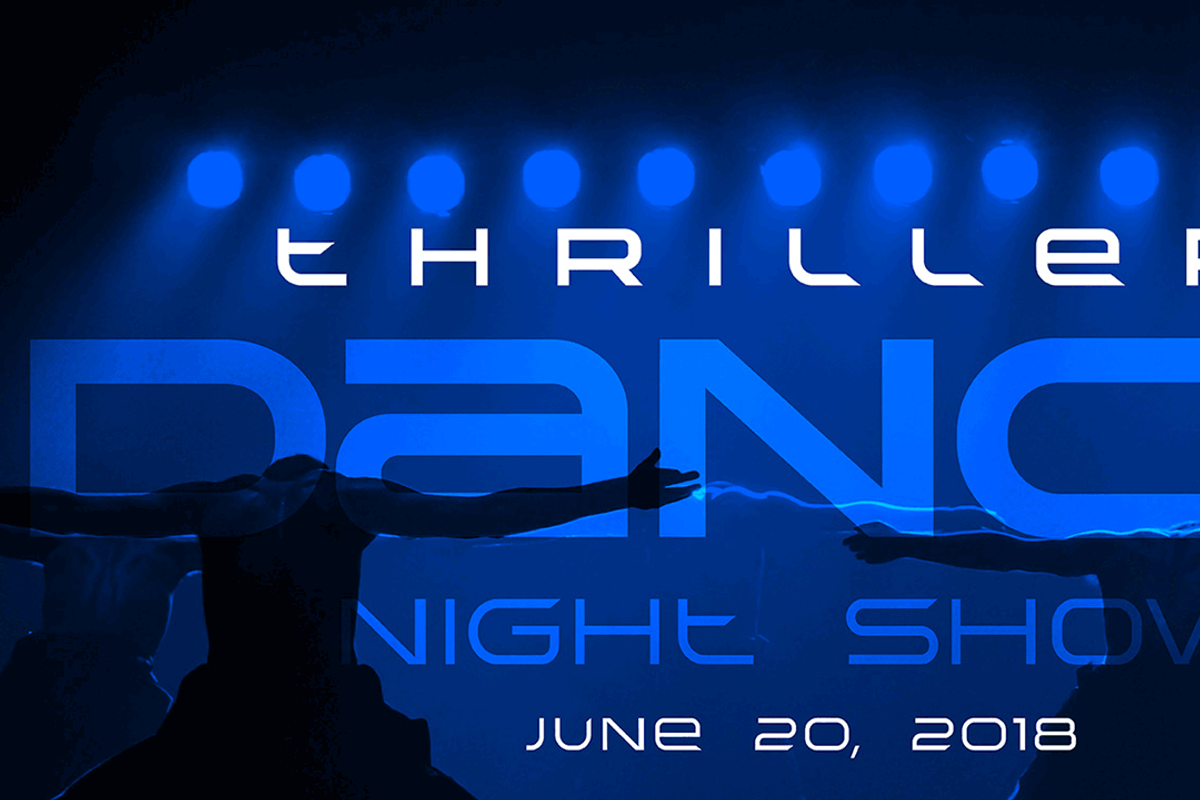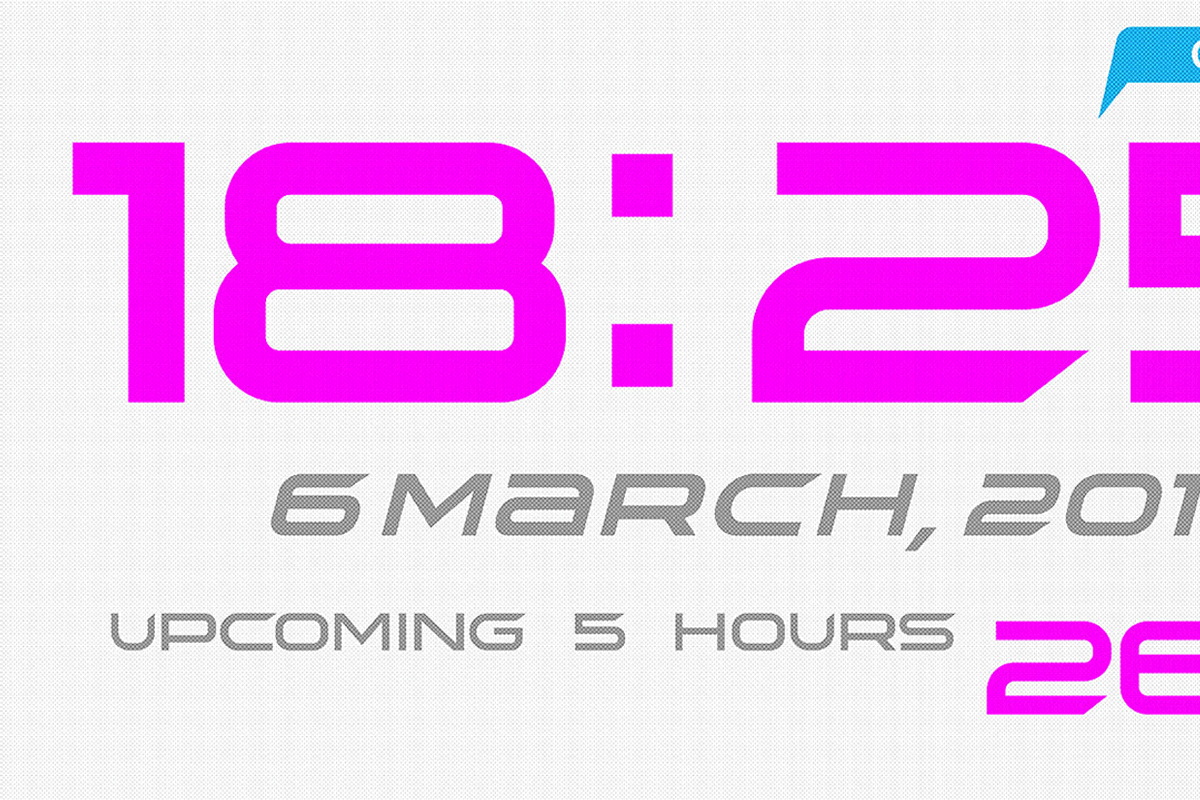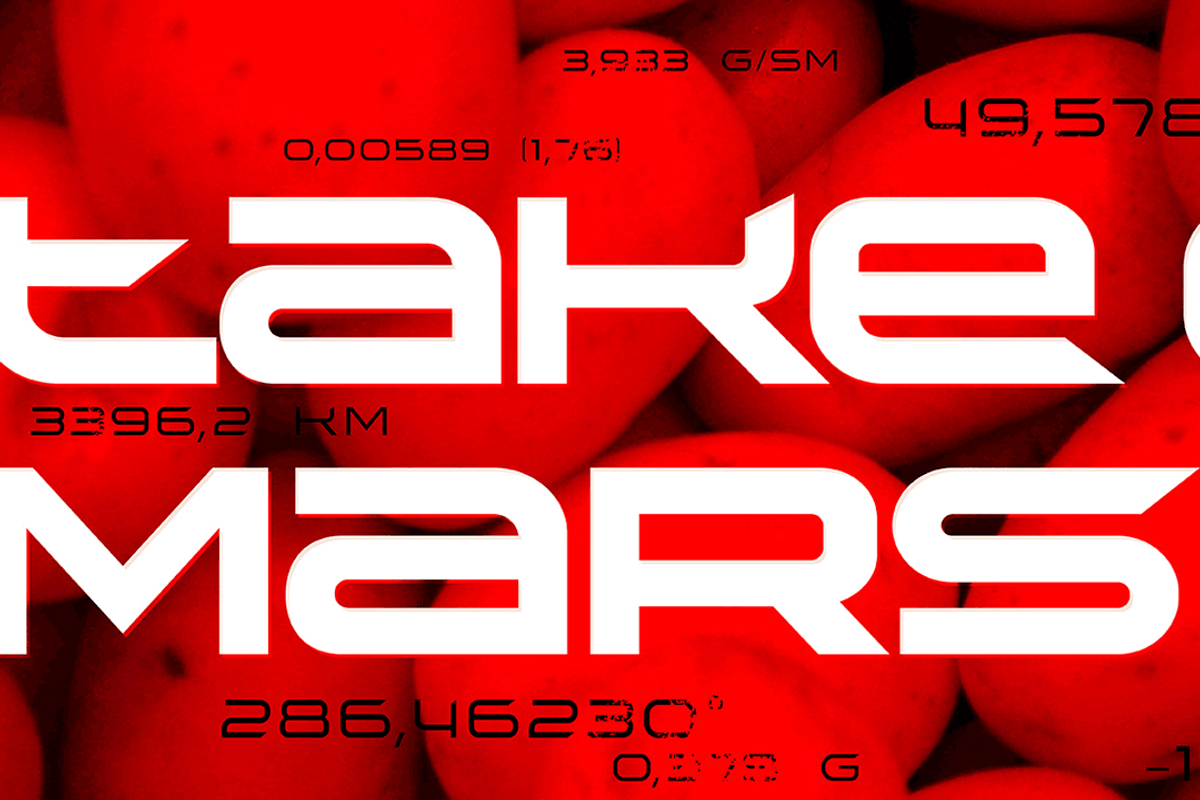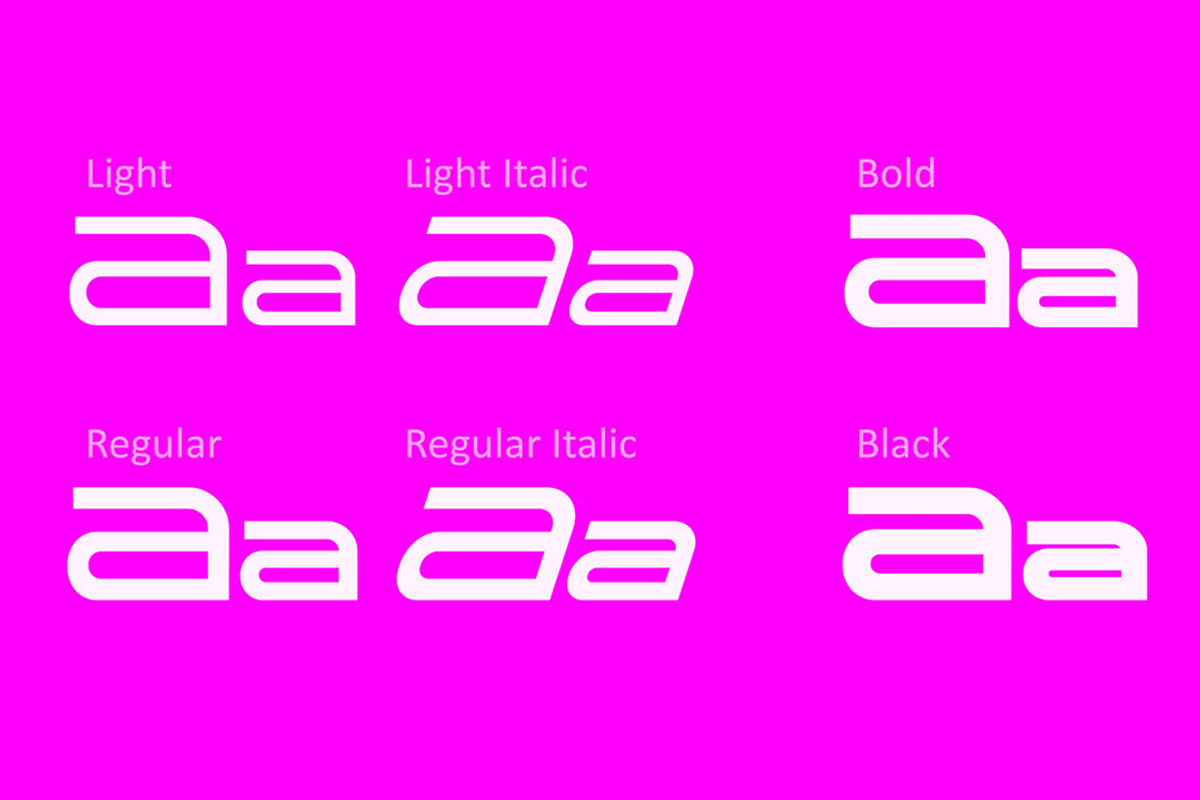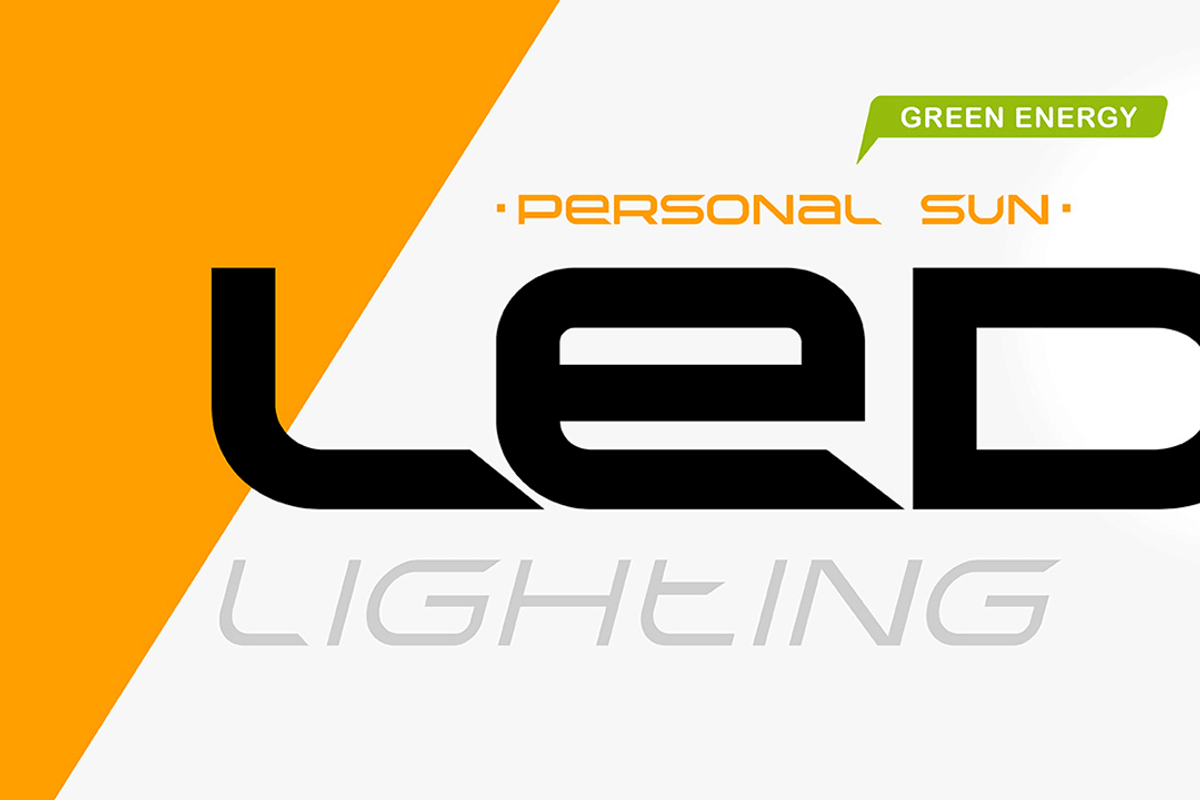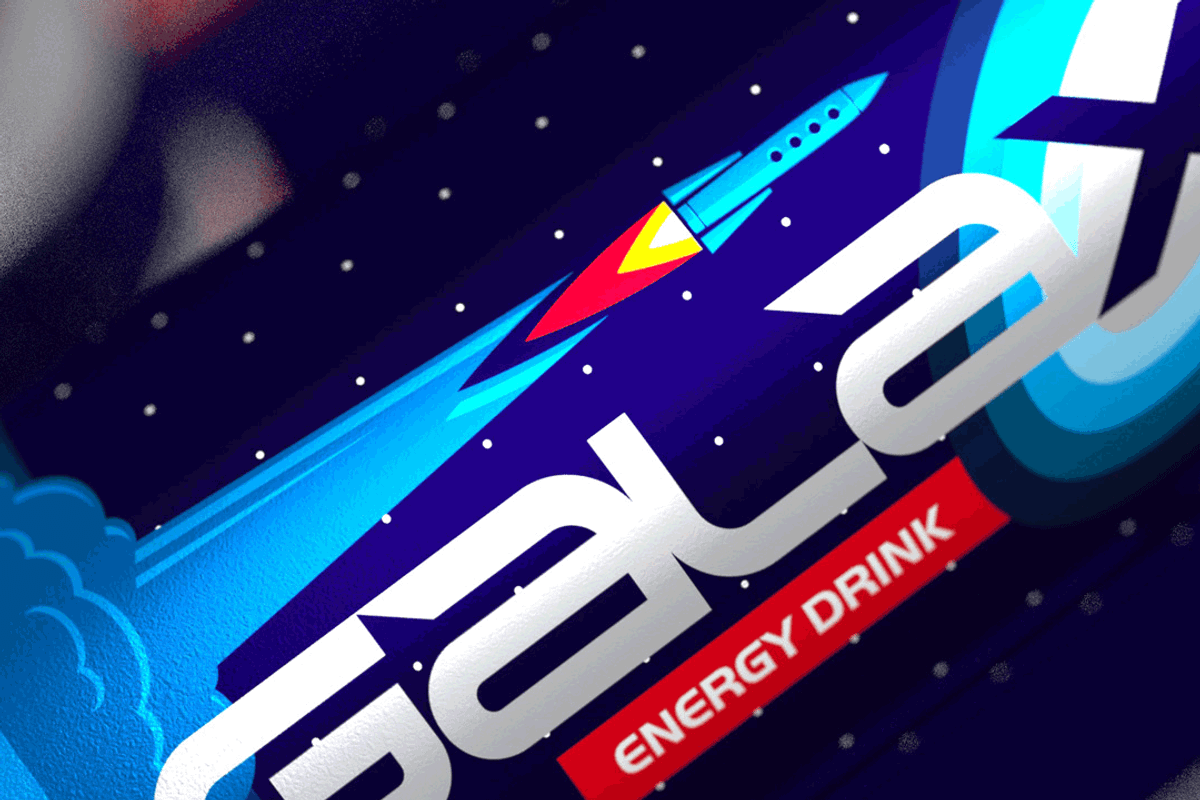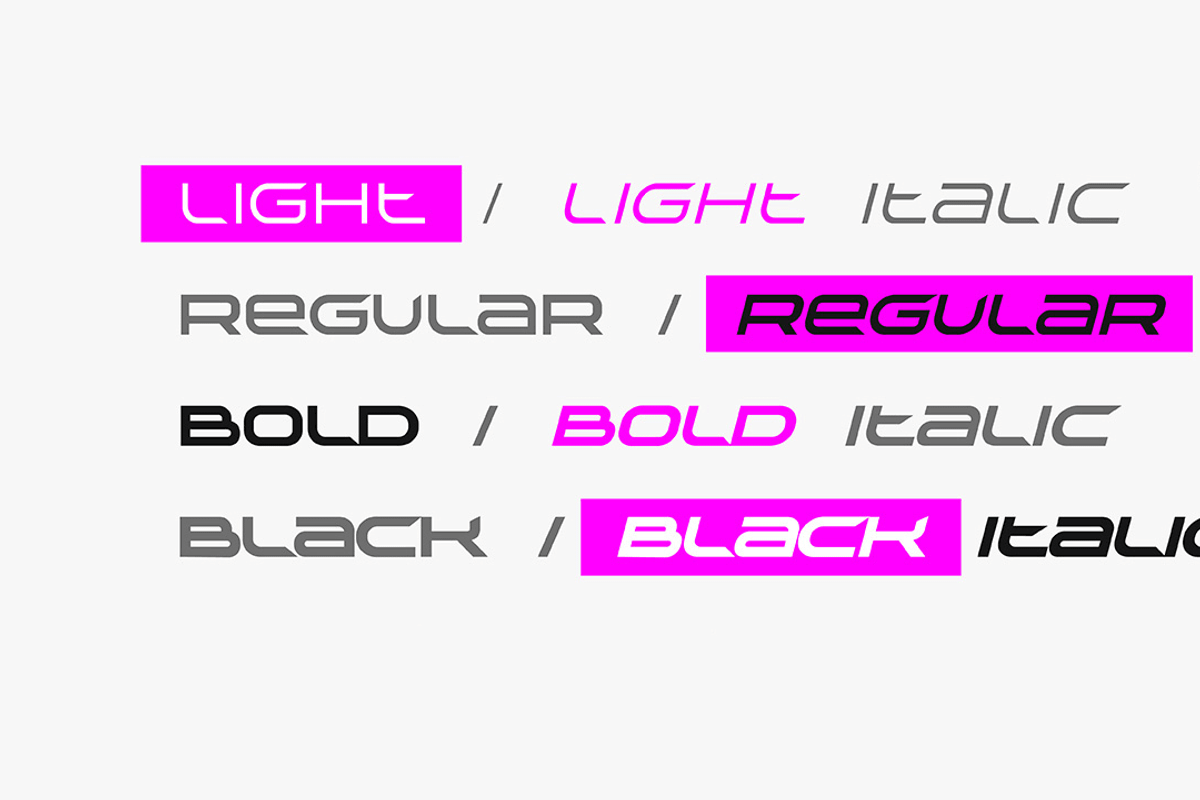
TechnoirSST Font
Clean, strong, ultra here and there. TechnoirSST it’s perfect for namecard, poster, logo, magazine, cover, banner, tshirt and headers, or even large-scale artwork.
Why TechnoirSST Font is worth a look
TechnoirSST Font by Reformer Mockup fits naturally into Branding, posters, packaging, typography.